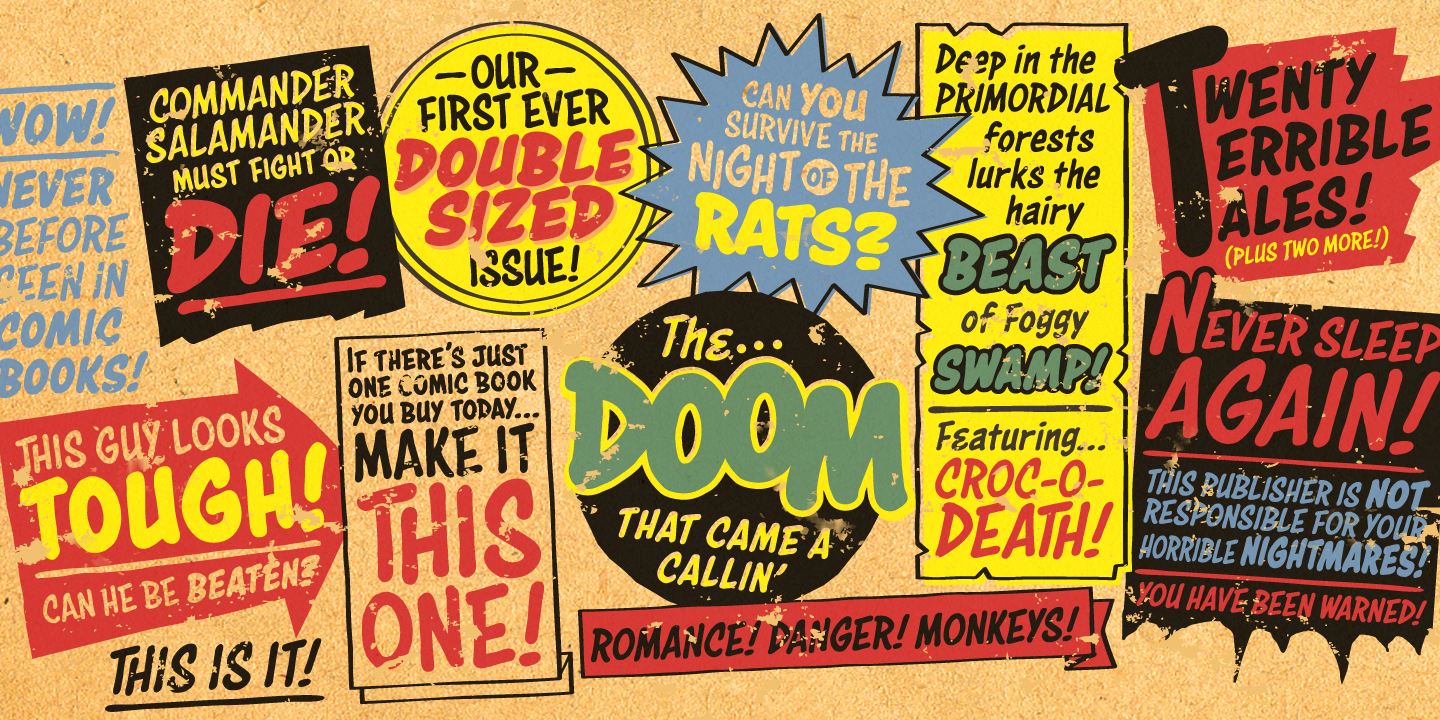
Astounder Round BB Font is a strikingly bold and exceptionally vibrant typeface, meticulously designed to grab attention with its playful yet powerful presence. Its distinctive rounded edges and robust letterforms make it an ideal choice for projects that demand a friendly, approachable, yet impactful visual statement. Imagine Astounder Round BB Font gracing the covers of graphic novels, adding an energetic flair to children's toy packaging, or bringing a dynamic, fun vibe to video game titles. This versatile font also excels in comic book lettering, impactful headlines for casual branding, event posters, or any design where you want to communicate enthusiasm, creativity, and a touch of modern pop art.
What makes Astounder Round BB Font truly exciting is its unique ability to combine strong visual weight with an inviting, soft aesthetic due to its rounded corners. It’s a font that stands out in a crowded visual landscape, offering a refreshing alternative to traditional heavy typefaces. Designers often seek typefaces that can deliver both a commanding presence and an element of fun, and Astounder Round BB Font perfectly achieves this balance. Its playful nature doesn't detract from its legibility, making it a highly effective tool for making a memorable visual statement in a friendly manner.
The Astounder Round BB Font family typically includes a range of weights and styles, such as Regular, Bold, and potentially an Outline or a more condensed version, offering valuable flexibility for diverse design needs. These variations are essential for designers to establish clear visual hierarchies and maintain a consistent stylistic thread across different elements of a project. Whether you need an eye-catching headline for a youthful campaign or impactful text for an animated sequence, the comprehensive choices within the Astounder Round BB Font family provide extensive creative freedom. For designs that demand a blend of playful energy and undeniable presence, be sure to explore Astounder Round BB Font Free Download.